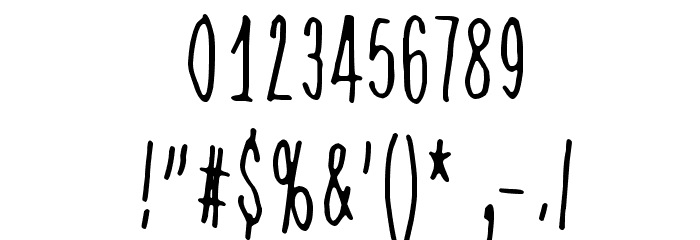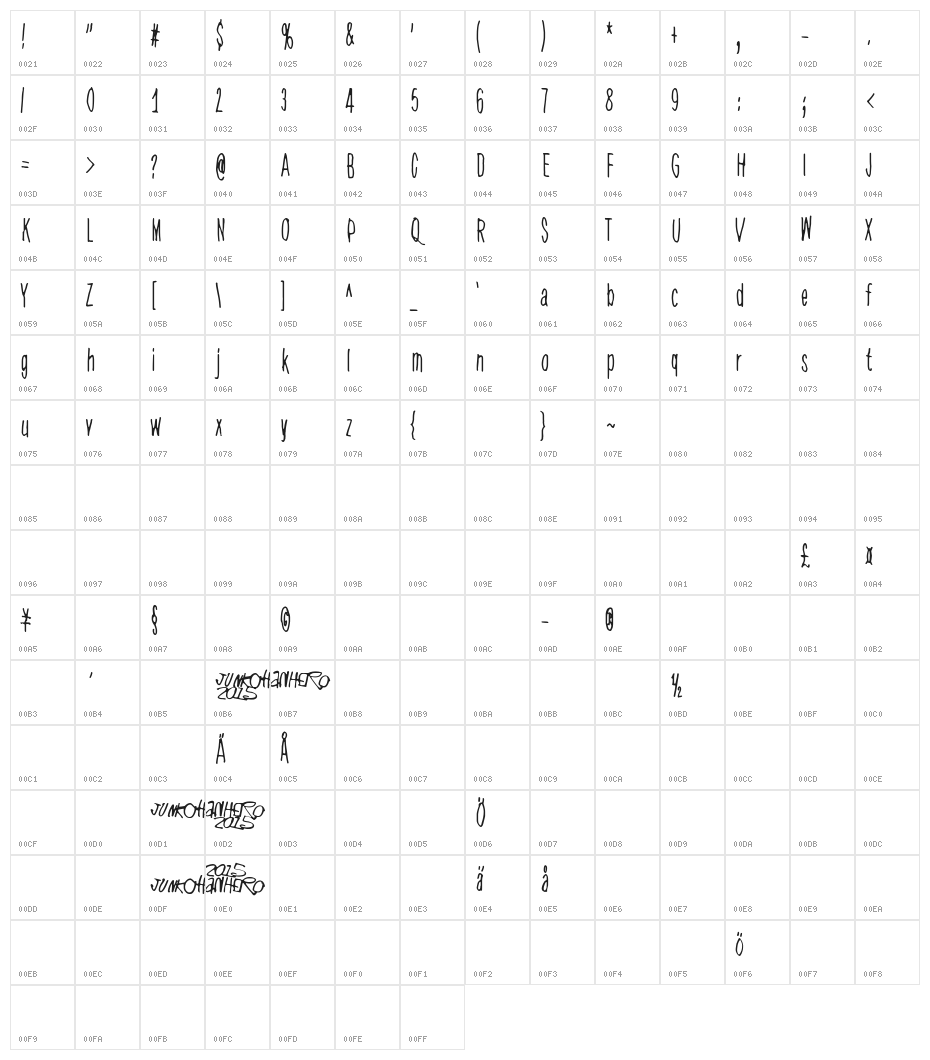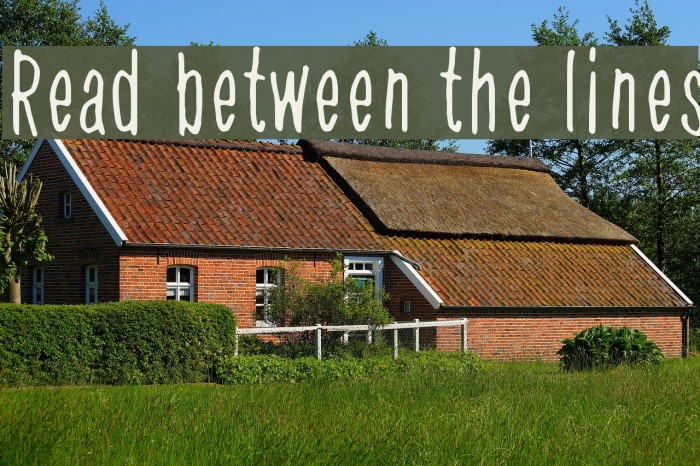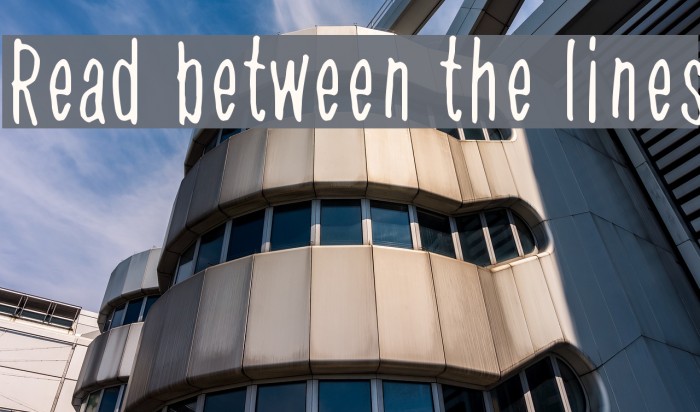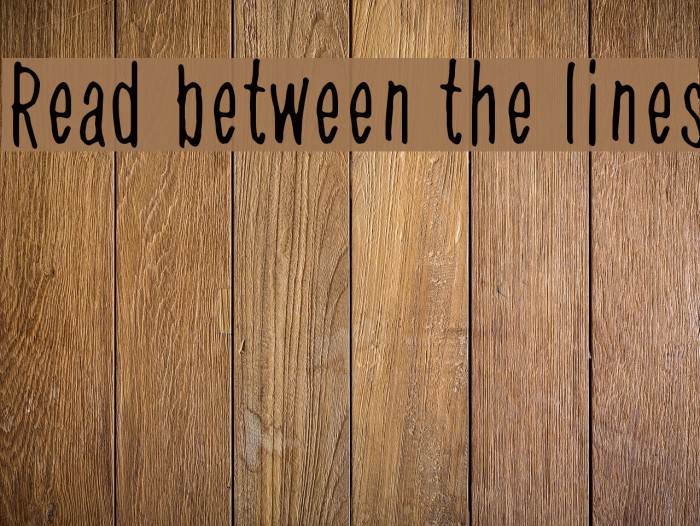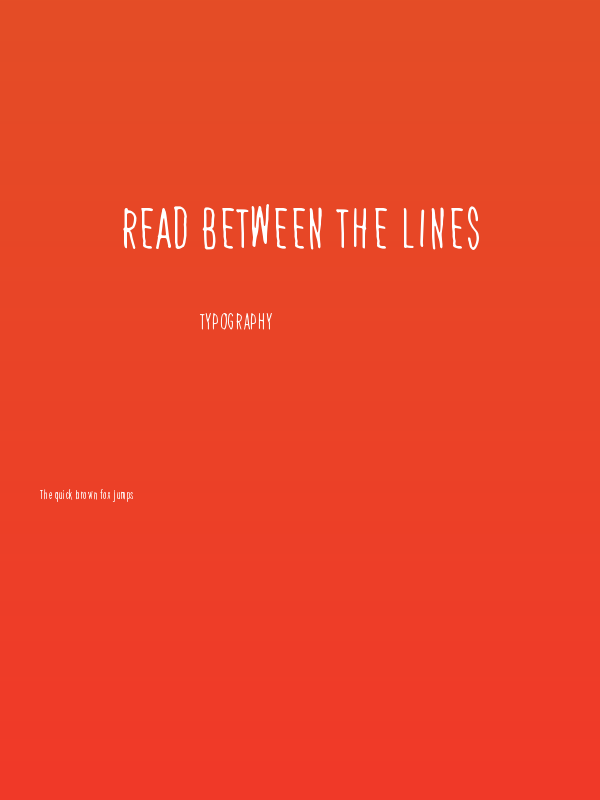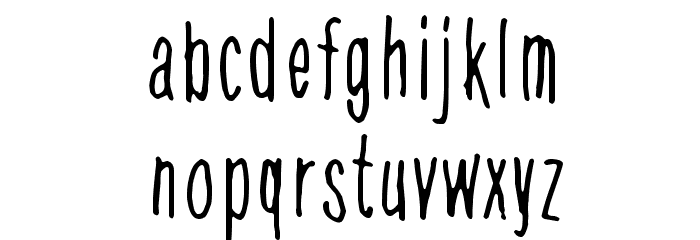
Read between the lines Font
Read between the lines Description
This font features a playful and slightly irregular design, giving it a hand-drawn appearance. The characters are tall and narrow, with a whimsical touch that adds personality to each letter. The uppercase letters maintain a consistent height, while the lowercase letters vary slightly, enhancing the casual feel. The numerals are distinct and easy to read, matching the overall quirky style. Special characters are creatively integrated, maintaining the font's unique charm. This font is ideal for projects that require a fun and informal look, such as children's books, creative posters, or playful branding.
Proposed ProjectsChildren's books, creative posters, playful branding, informal invitations.